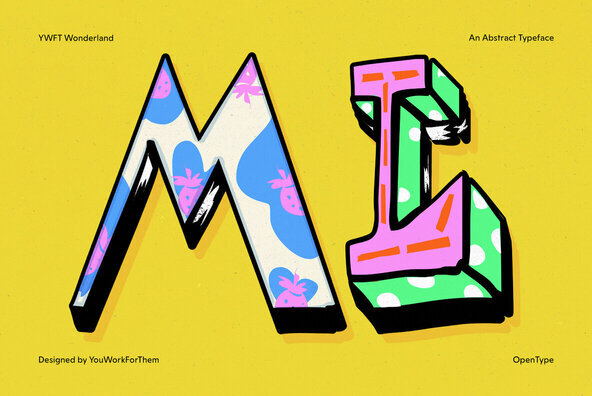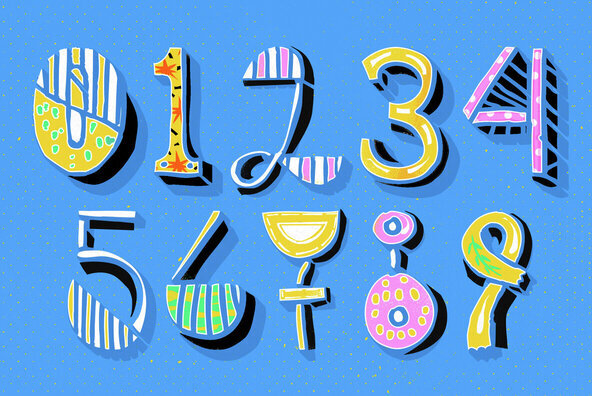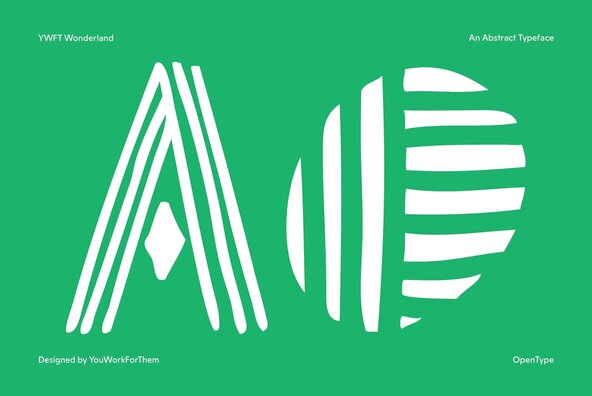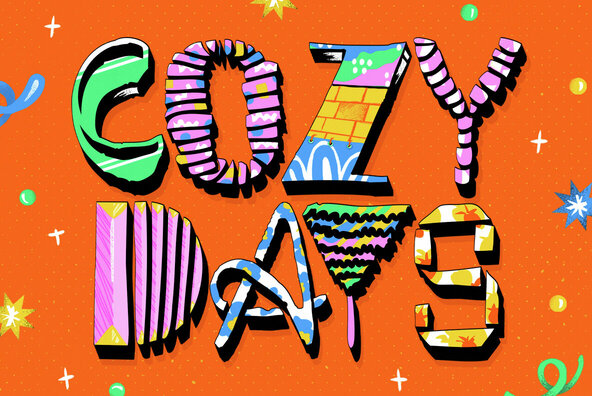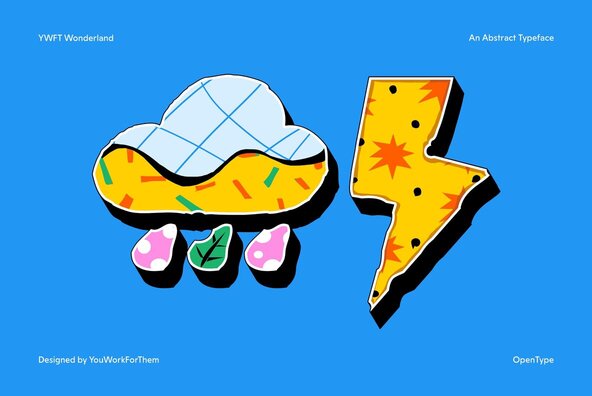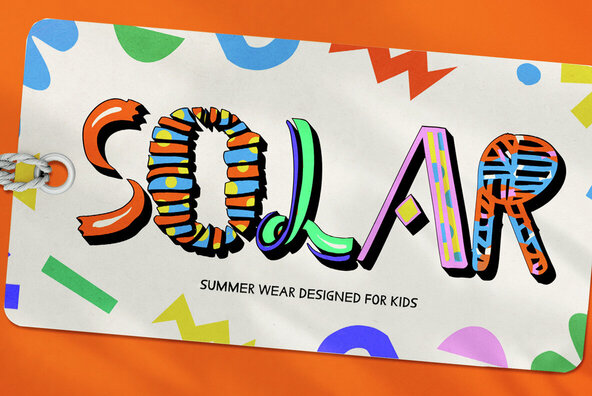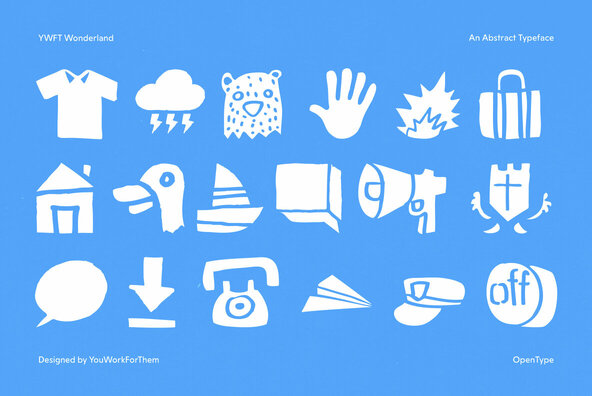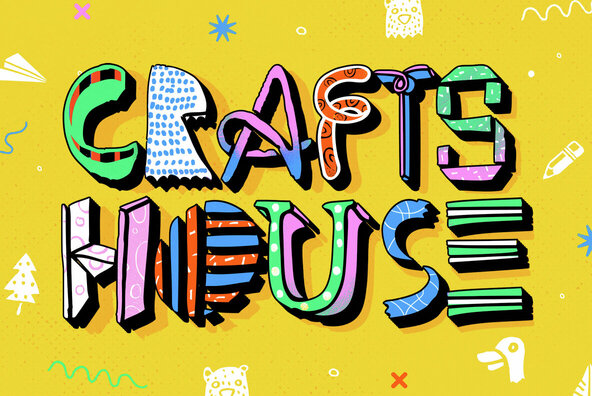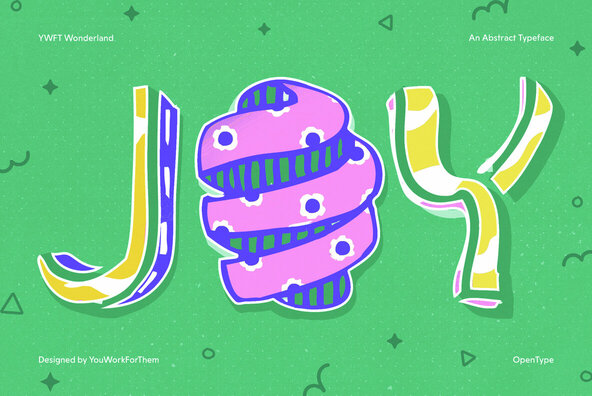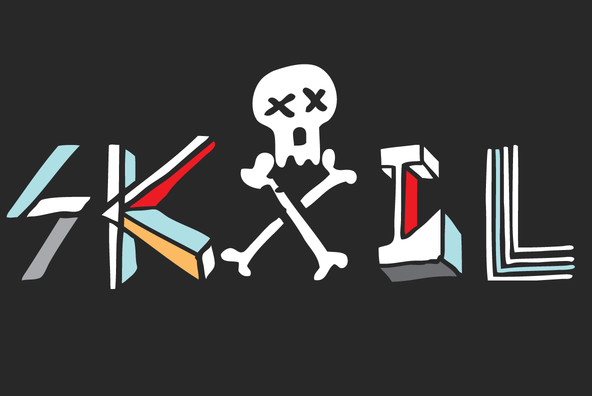
When the borogoves were done getting mimsy, YWFT Wonderland had ended up with over 1500 letter designs! Don't be late, late for this very important date with YWFT Wonderland: the most unorthodox font in the world.
If R. Crumb met Frank the Bunny for drinks, they'd each order one bourbon, one scotch, and one Wonderland. Very aptly-named font. Go ask Alice. In fact, when the borogoves were done getting mimsy, YWFT Wonderland had ended up with over 1500 letter designs! It's similar to our handset YWFT Gavin (2010), but injected with two parts of Yout' Juice. This thing will enliven any billboard, explode any poster, and blow any screen you put it on. Don't be late, late for this very important date with YWFT Wonderland: the most unorthodox font in the world.